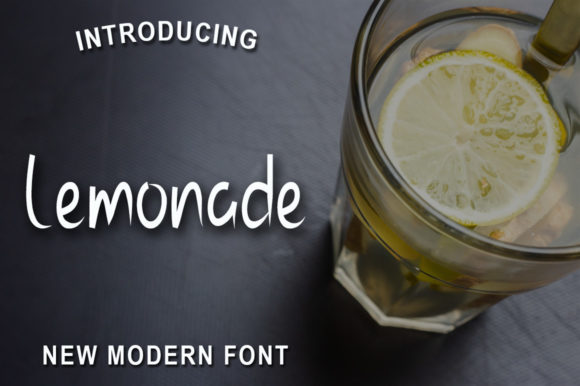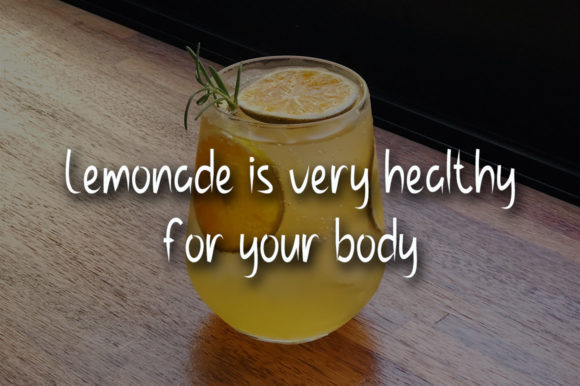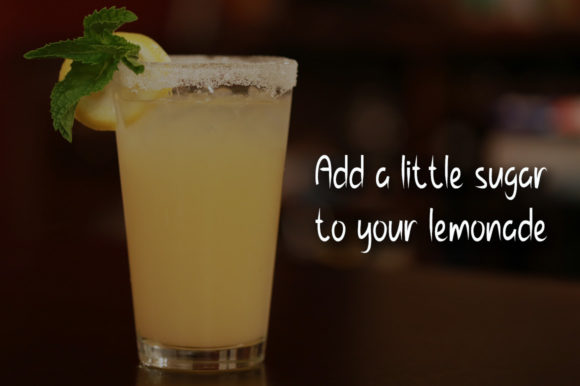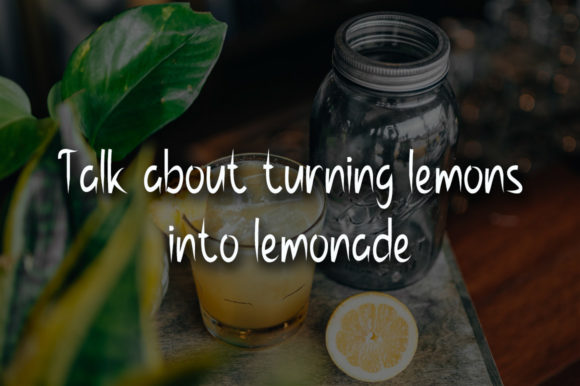
Lemonade Font
About Lemonade Font
Lemonade is a modern, fun and cool looking handwritten font. No matter the topic, this font will be an incredibly asset to your fonts’ library, as it has the potential to elevate any creation.